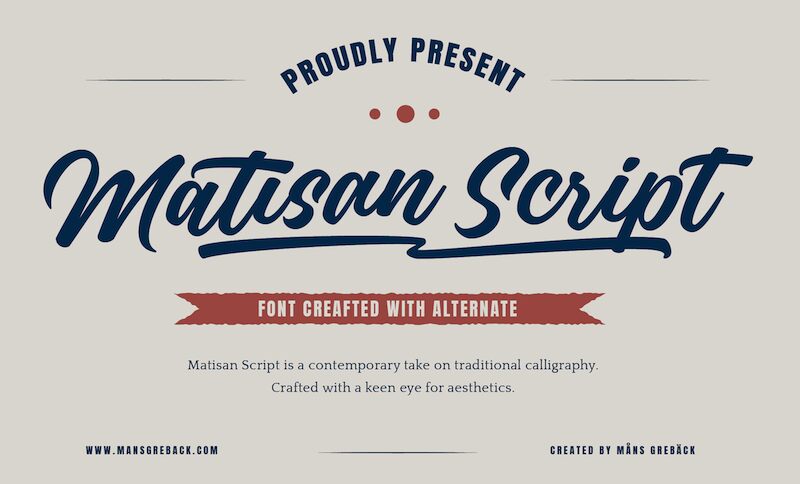
Matisan Script, crafted by Mans Greback, exudes a personal touch with its handwritten style that seems to dance across the page. With graceful strokes and an organic flow, this font carries the charm of traditional calligraphy into the digital age. Its elegance is accentuated by a certain boldness in its lines, making it stand out while maintaining an air of sophistication.
The aesthetic appeal of Matisan Script lies in its ability to convey warmth and individuality, making it ideal for invitations, branding projects, and editorial designs where personality is key. Whether gracing the cover of a boutique's catalogue or adding flair to personalized stationery, Matisan Script brings an authentic handwritten quality that's both inviting and stylish.
The calligraphic design of Matisan Script is characterized by its bold, yet delicate, brush strokes, imparting a sense of dynamism and motion.
Use one or multiple underscores _ anywhere in a word to make a swash.
Example: Ma_ster Wonder____woman